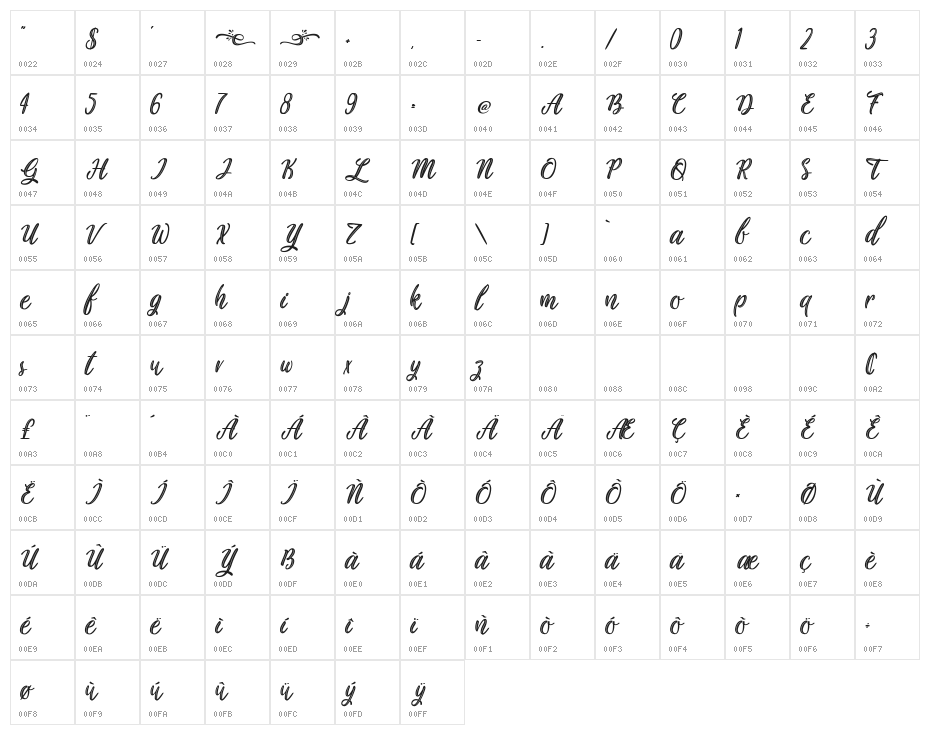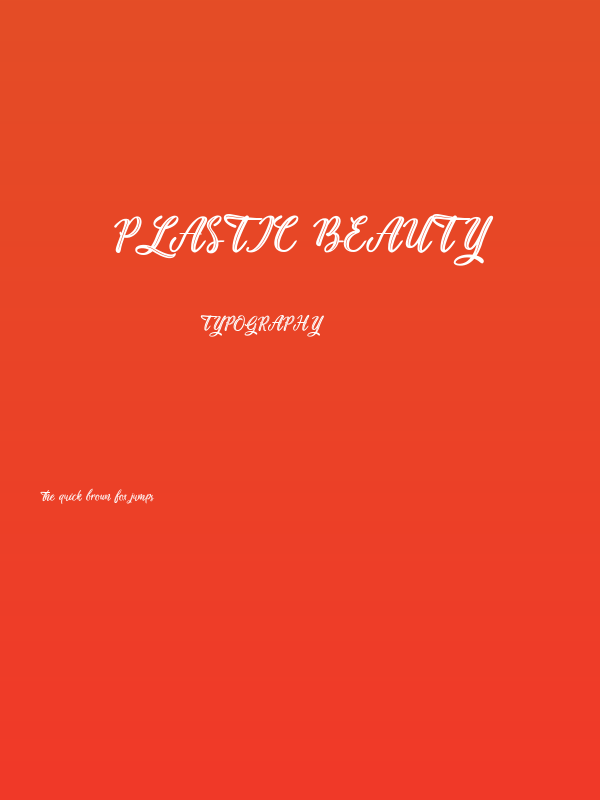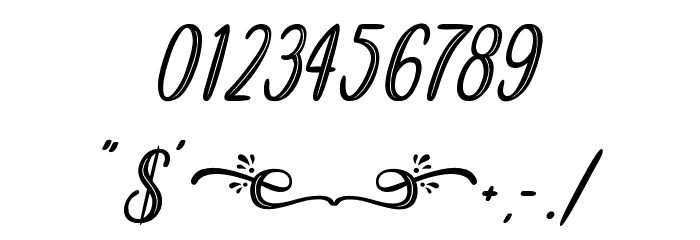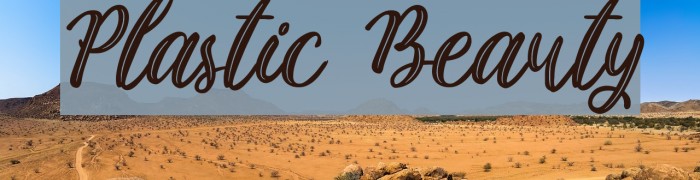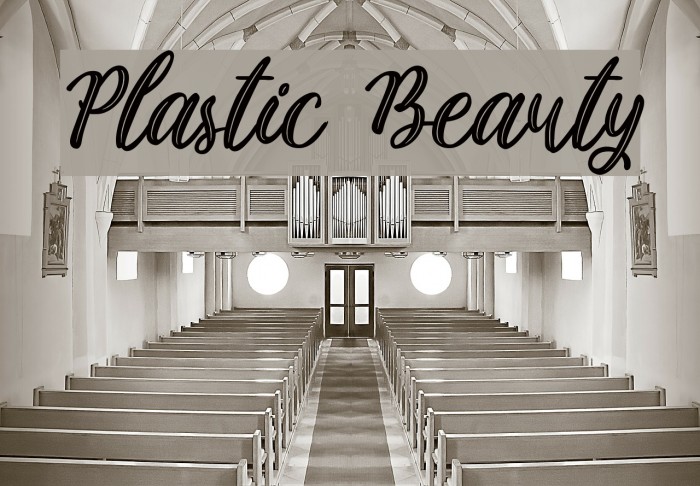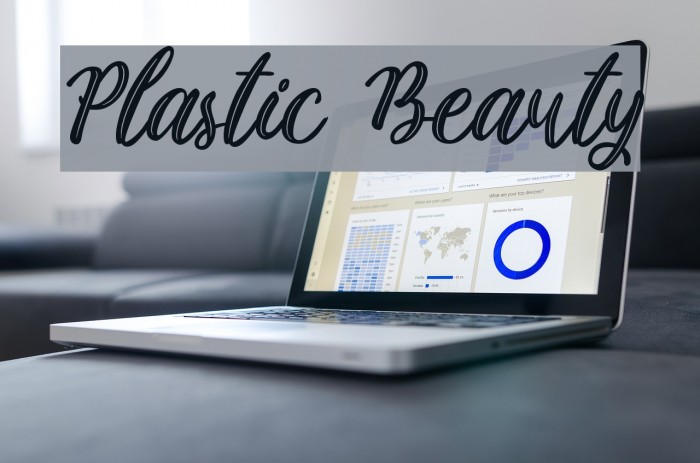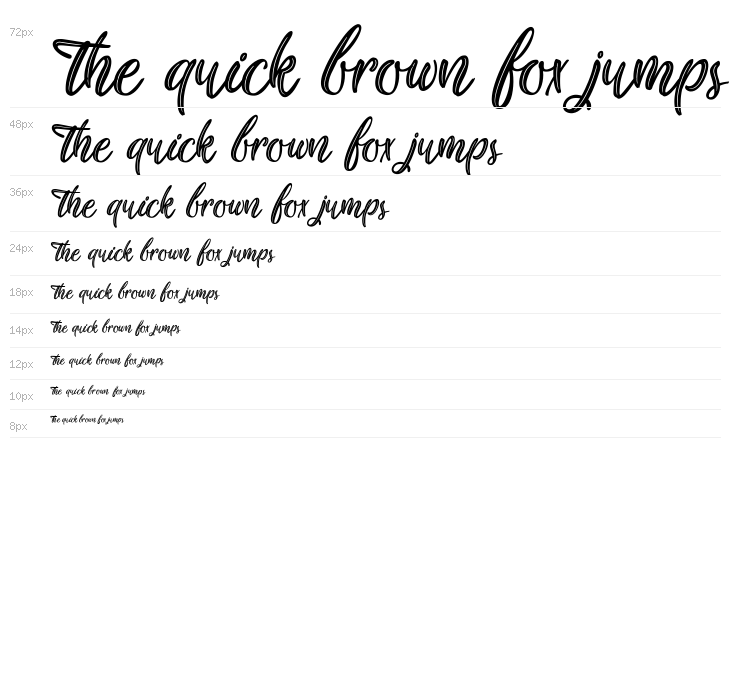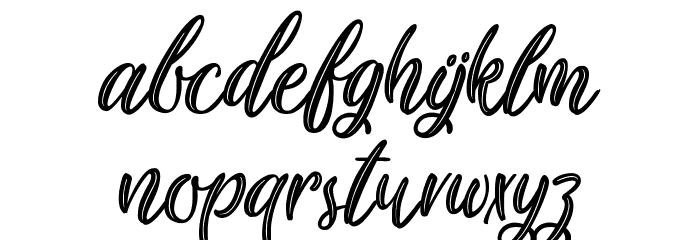
Plastic Beauty Font
Plastic Beauty Description
This font features a flowing, cursive style with elegant, sweeping strokes that give it a sophisticated and artistic appearance. The uppercase letters are bold and prominent, with distinctive flourishes that add a touch of flair. The lowercase letters maintain a consistent style, with smooth connections between characters, enhancing the script-like quality. The numerals are clear and maintain the same decorative style, ensuring readability while retaining the font's unique character. Special characters are adorned with intricate details, adding to the overall decorative appeal. This font is ideal for projects that require a touch of elegance and creativity.